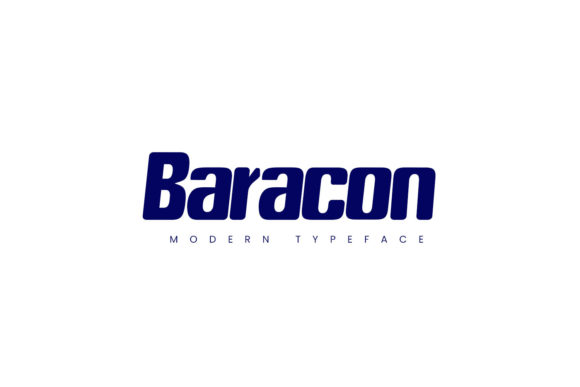
Introducing Baracon Font: The Ultimate Modern Display Font for Designers and Crafters
Are you tired of using the same old fonts in your designs? Look no further than Baracon Font, a modern, thick lettered, and futuristic display font that’s perfect for adding a touch of sophistication and style to your projects. In this article, we’ll take a closer look at Baracon Font, its features, and how it can elevate your designs to the next level.
What is Baracon Font?
Baracon Font is a modern display font designed to make a statement. Its thick, bold letters and futuristic aesthetic make it perfect for a wide range of design applications, from banners and logos to labels and commercial ads. Whether you’re a designer, crafter, or DIY enthusiast, Baracon Font is a versatile and stylish addition to your font collection.
Key Features of Baracon Font
- Modern and Futuristic Design: Baracon Font boasts a sleek and contemporary design that’s sure to turn heads. Its futuristic aesthetic makes it perfect for designs that require a cutting-edge look.
- Thick and Bold Letters: The font’s thick, bold letters ensure that your designs stand out from the crowd. Whether you’re creating a logo, banner, or label, Baracon Font is sure to make a statement.
- Versatile and Adaptable: Baracon Font can be used in a wide range of design applications, from digital designs to print materials. Its versatility makes it a valuable addition to any designer’s font collection.
How to Use Baracon Font in Your Designs
Baracon Font is incredibly easy to use and can be incorporated into your designs in a variety of ways. Here are a few ideas to get you started:
- Logos and Branding: Use Baracon Font to create a bold and memorable logo that showcases your brand’s personality.
- Banners and Posters: Add a touch of sophistication to your banners and posters with Baracon Font’s modern and futuristic design.
- Labels and Packaging: Use Baracon Font to create eye-catching labels and packaging that stands out on store shelves.
- Commercial Ads: Make your commercial ads more engaging and attention-grabbing with Baracon Font’s bold and thick letters.
Benefits of Using Baracon Font
So why should you choose Baracon Font for your designs? Here are just a few benefits of using this versatile and stylish font:
- Increased Visibility: Baracon Font’s bold and thick letters ensure that your designs stand out from the crowd and grab the attention of your audience.
- Improved Brand Recognition: Use Baracon Font to create a consistent brand identity that showcases your brand’s personality and style.
- Enhanced Creativity: With Baracon Font, you can experiment with a wide range of design possibilities, from futuristic and modern to bold and edgy.
| Font Name | Baracon Font |
| Author | BeeType |
In conclusion, Baracon Font is a modern, thick lettered, and futuristic display font that’s perfect for designers and crafters looking to add a touch of sophistication and style to their projects. With its versatile and adaptable design, Baracon Font can be used in a wide range of applications, from logos and branding to banners and posters. So why wait? Download Baracon Font today and take your designs to the next level!